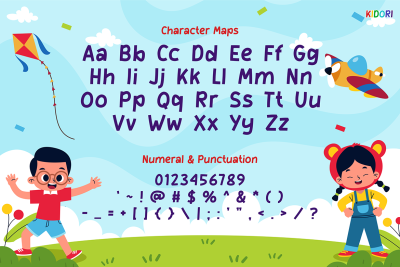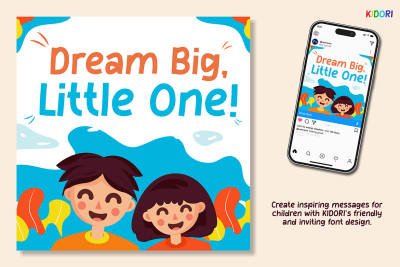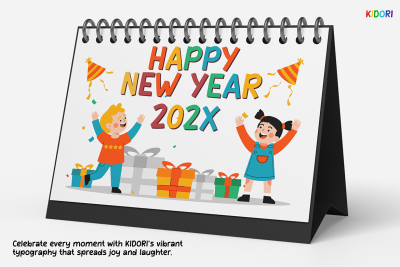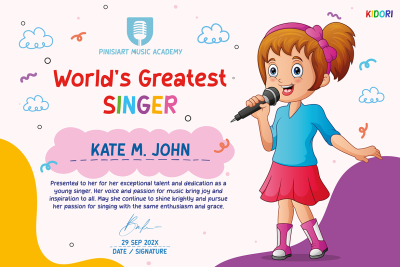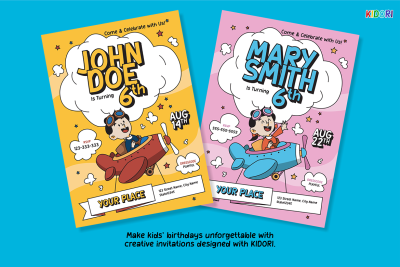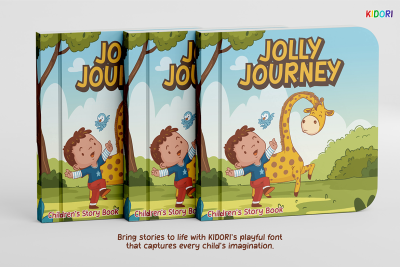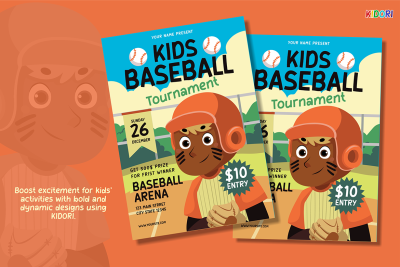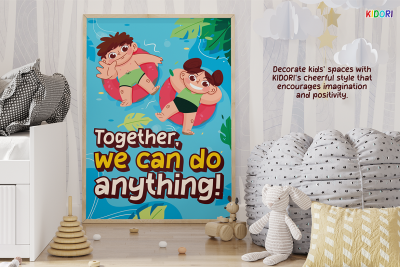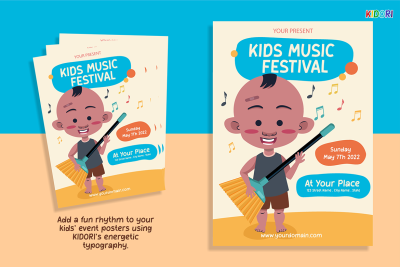
Kids Font Kidori is an exciting and charming typeface that brings fun and creativity to your designs. With its playful, handwritten style, Kidori is perfect for any project aimed at children or anyone looking to add a whimsical touch. The font features soft, rounded edges and bouncy strokes, giving it a hand-drawn feel. It captures the carefree and imaginative spirit of childhood, making it ideal for a wide variety of designs.
The design of Kidori is both clean and simple, yet full of character. The letters have playful curves, creating a sense of warmth and joy. This makes it perfect for conveying happiness and fun. Kidori is easy to read, whether for large headlines or smaller text. It works well for posters, websites, invitations, and more. Whether you are designing an invitation or a school flyer, Kidori adds a lively and fun element to your project.
One of the things that makes Kidori unique is how it balances creativity and simplicity. While the font has fun and playful shapes, itโs still legible and approachable. Itโs ideal for projects where a lighthearted atmosphere is needed. The font is perfect for playful branding, childrenโs educational materials, and creative projects. Its soft, rounded letters give it a child-friendly appearance, making it a top choice for kids’ content. Kidori is ideal for titles, headlines, or even body text when you want a cheerful and engaging tone.
Who Can Use Kids Font Kidori?
Kids Font Kidori is a great choice for anyone working on projects for children. Itโs perfect for designers creating childrenโs books, educational content, and websites. Kidoriโs playful style will appeal to young audiences and make learning materials more engaging. From worksheets to online classes, the font brings an element of fun to educational content.
Kidori is also an excellent choice for invitations and promotional materials for kids’ events. Whether you are planning a birthday party, school fair, or a kid’s concert, the fontโs lively design adds excitement to any event. Its joyful style grabs the attention of both kids and parents, making it perfect for posters, banners, and flyers.
In addition, Kidori is a great fit for brands and products aimed at children. If you work in childrenโs fashion, toys, or accessories, this font adds a playful personality to your brand. Itโs perfect for websites, social media posts, packaging, and advertisements. Kidori connects with both children and parents, making your products feel friendly and inviting.
In summary, Kids Font Kidori is a versatile and fun font that is perfect for a wide range of projects. Its playful and handwritten style is ideal for educational materials, event invitations, and children’s brands. Whether you are designing books, websites, or promotional materials, Kidori adds a touch of joy to every project.